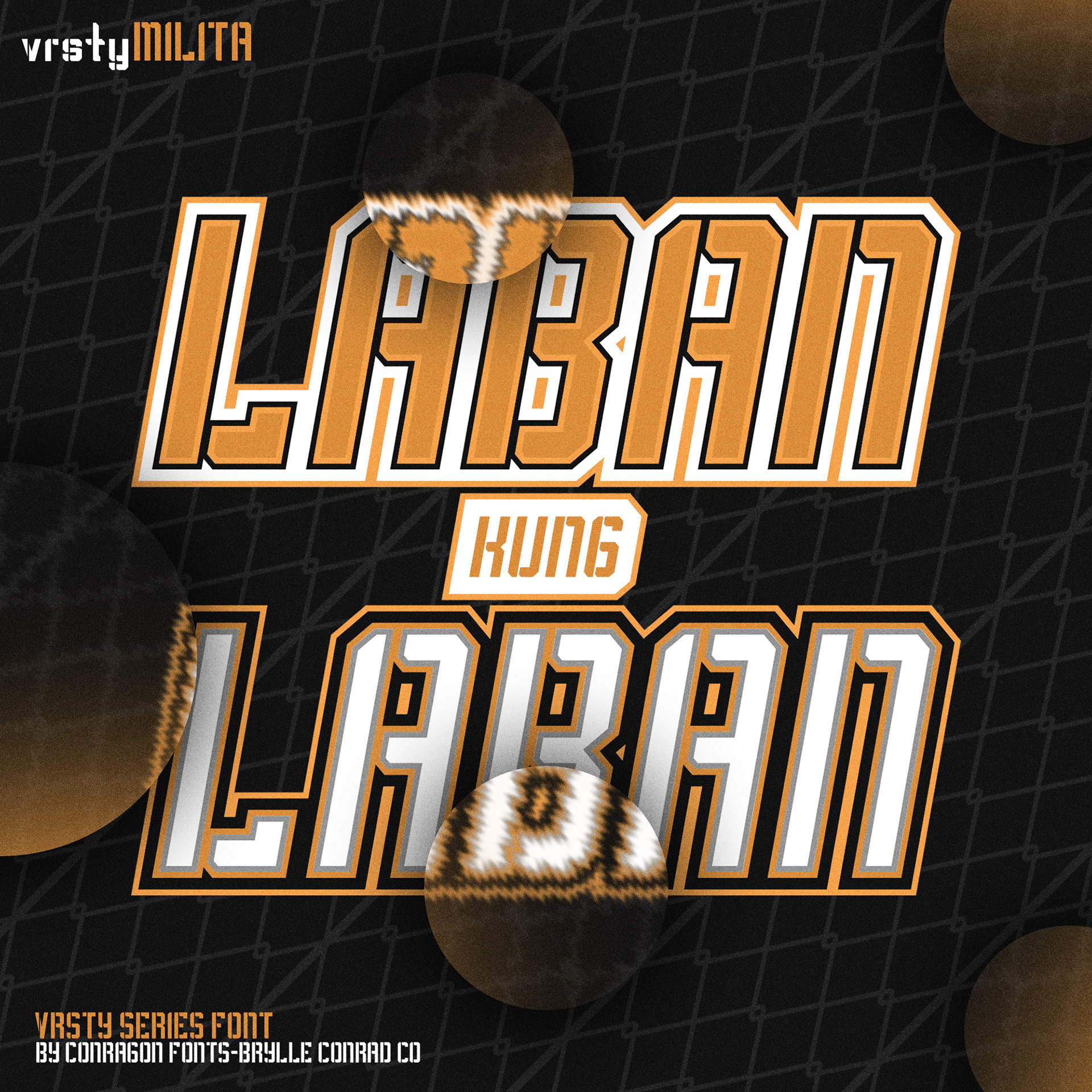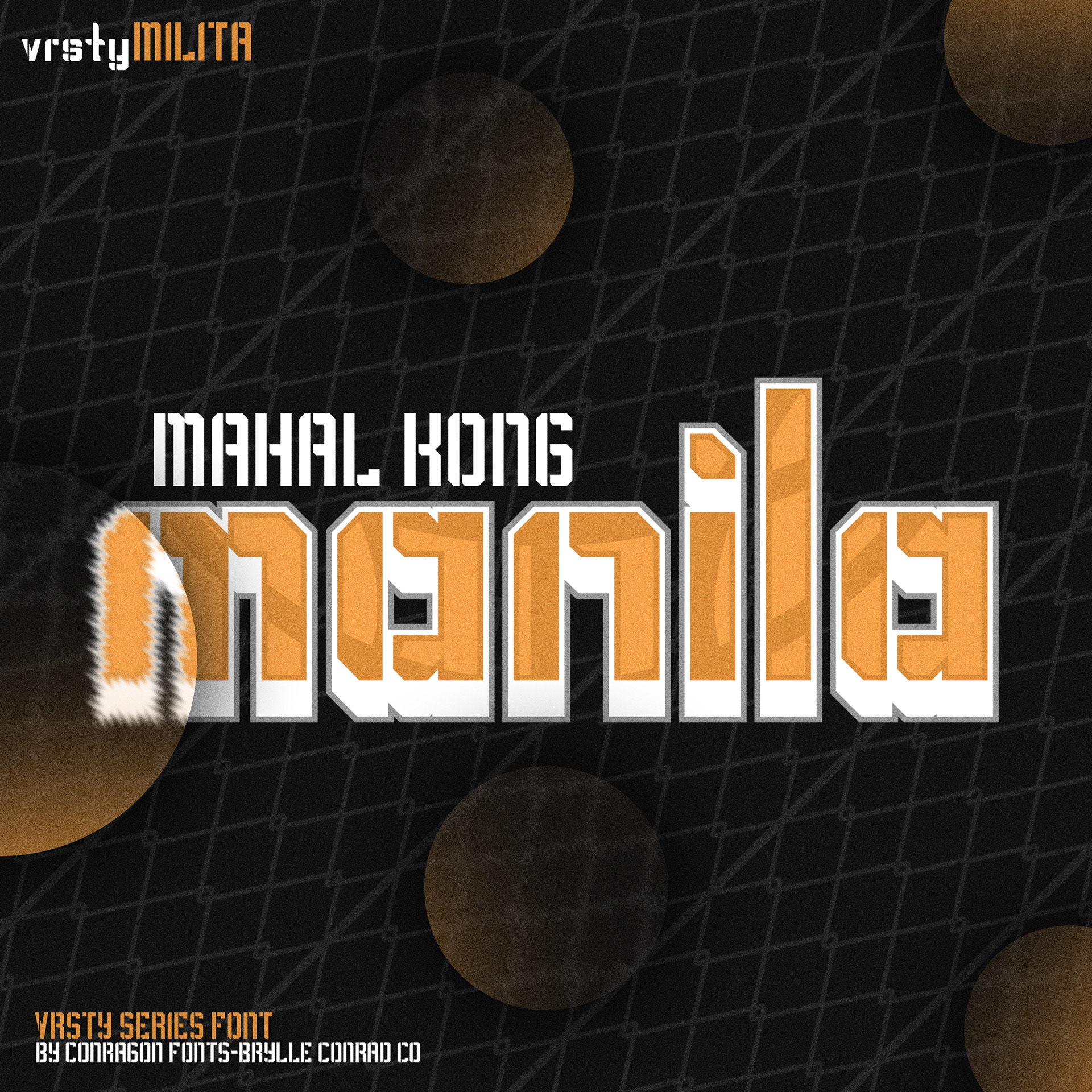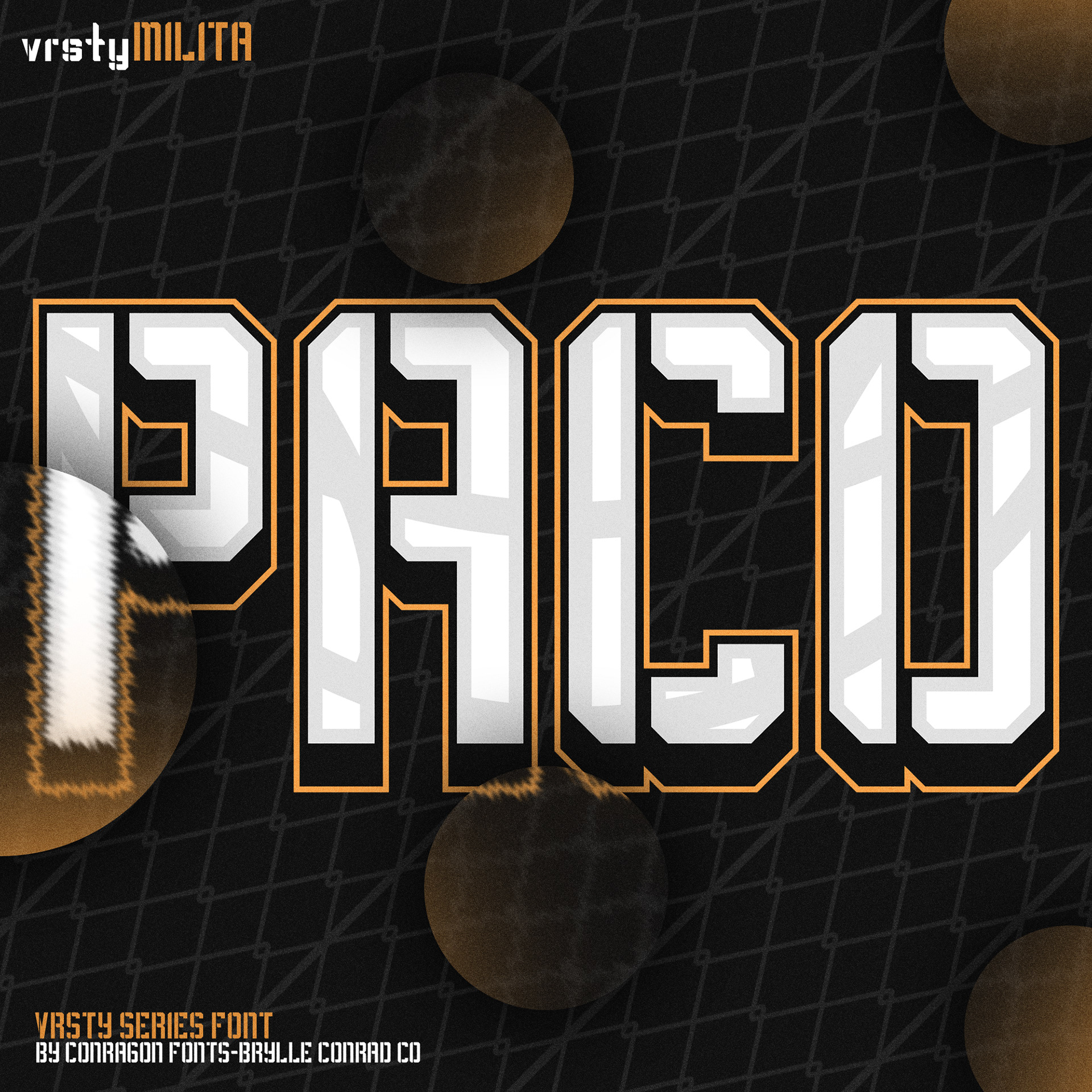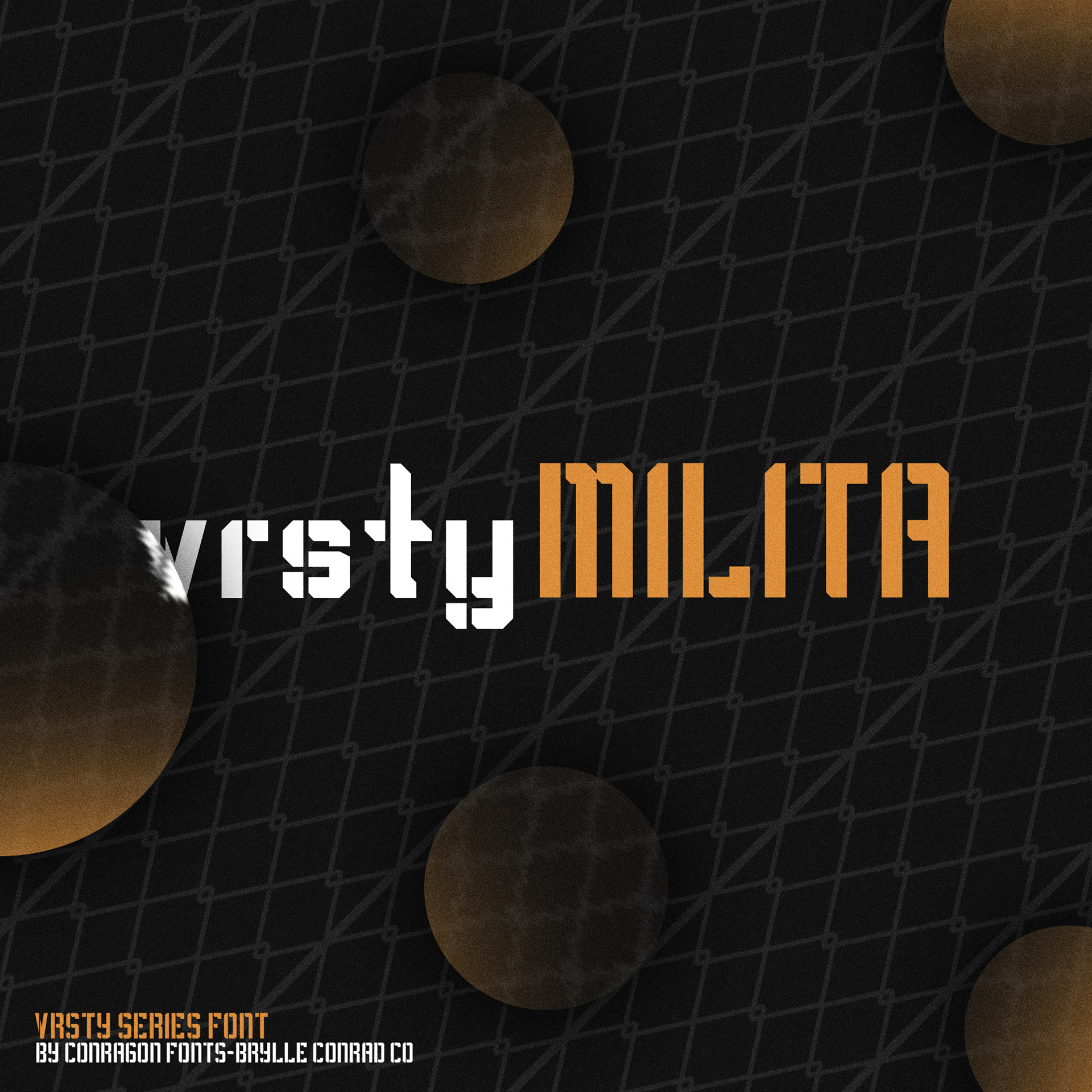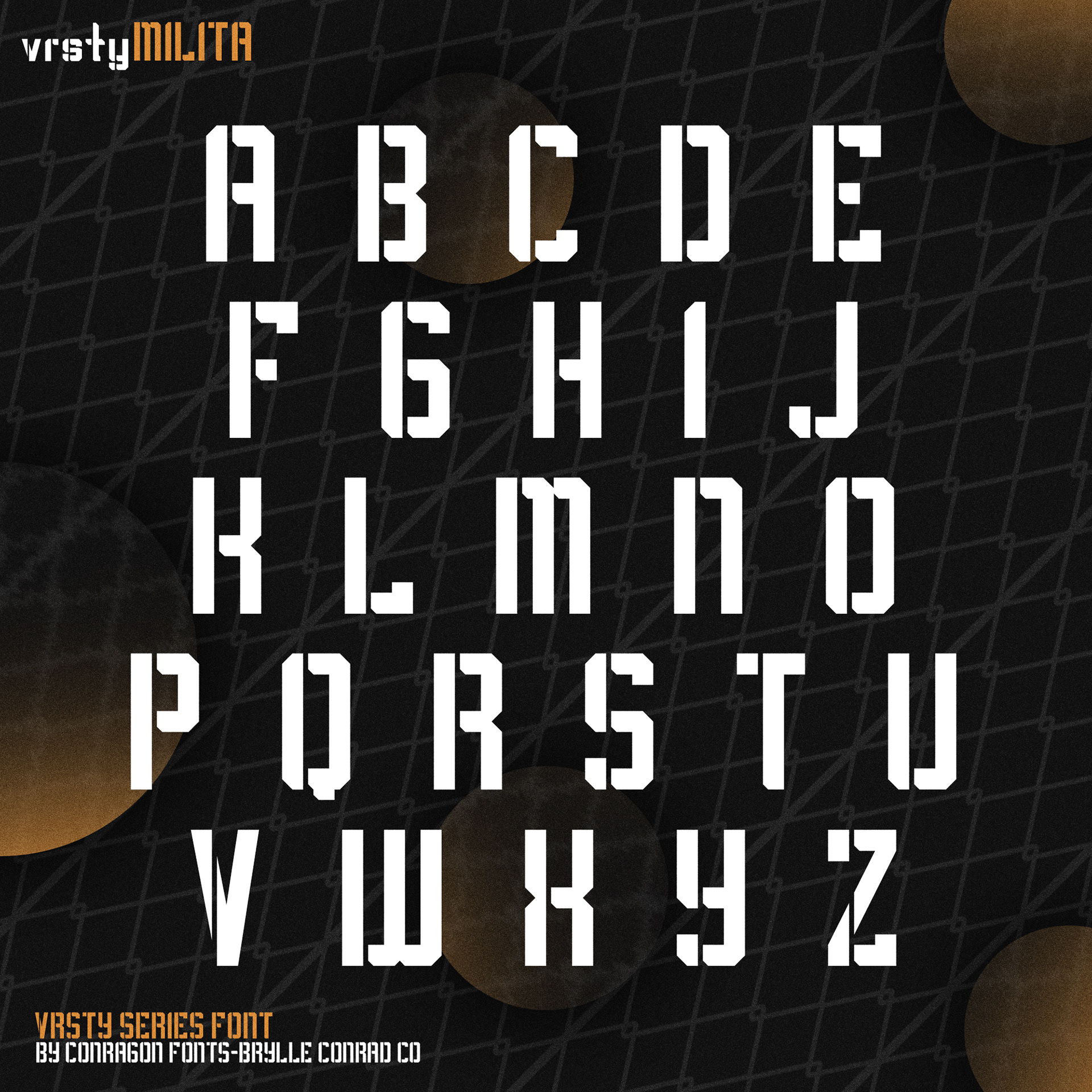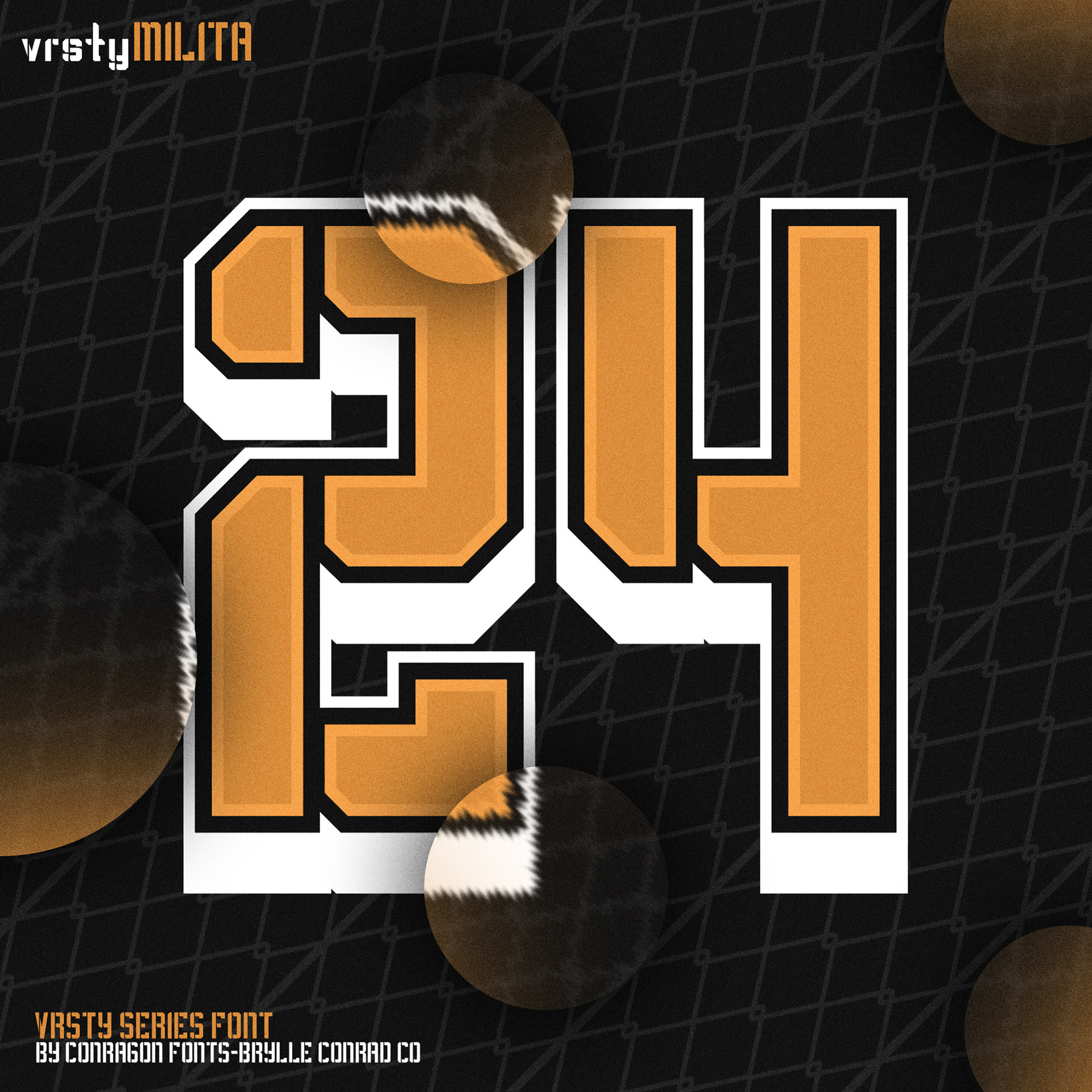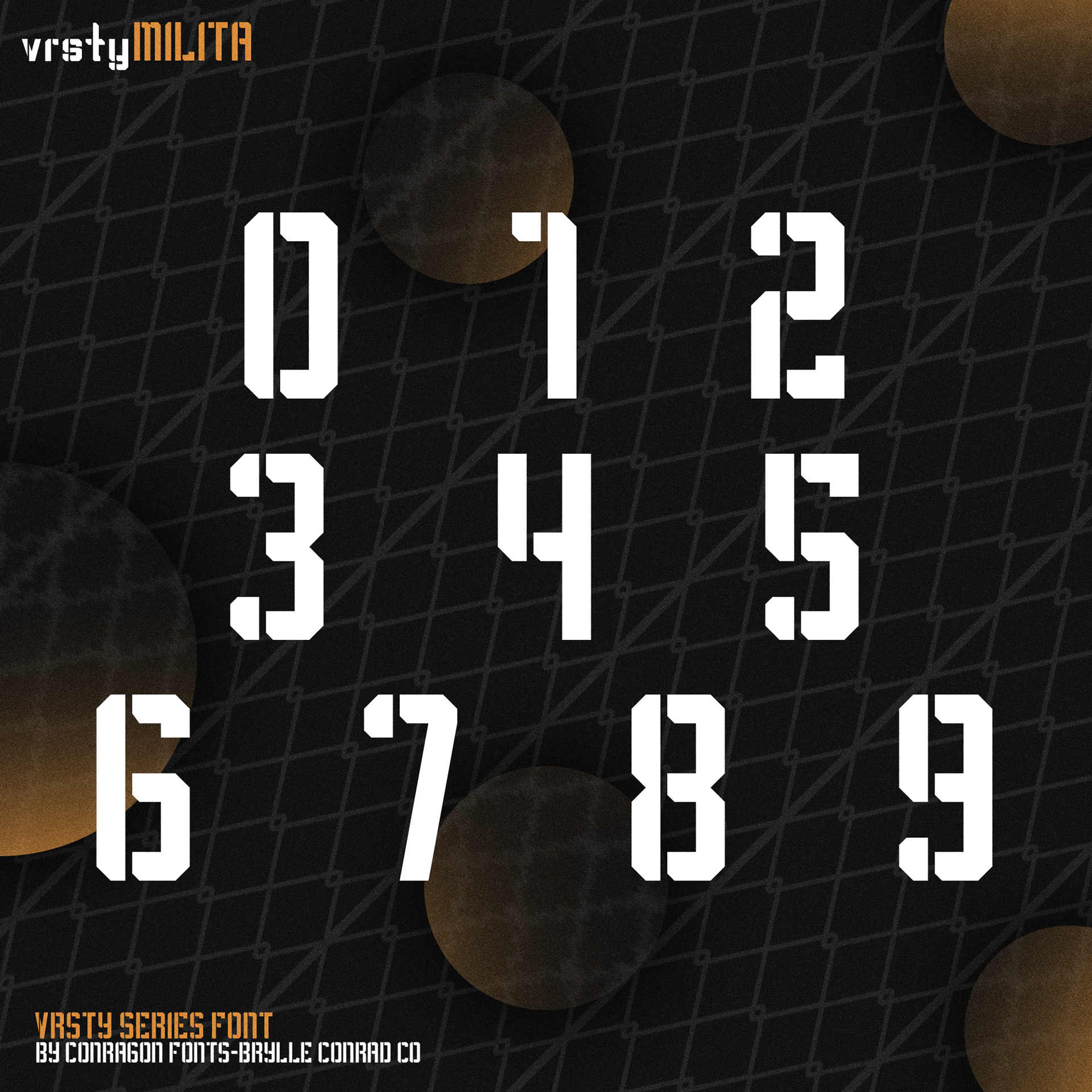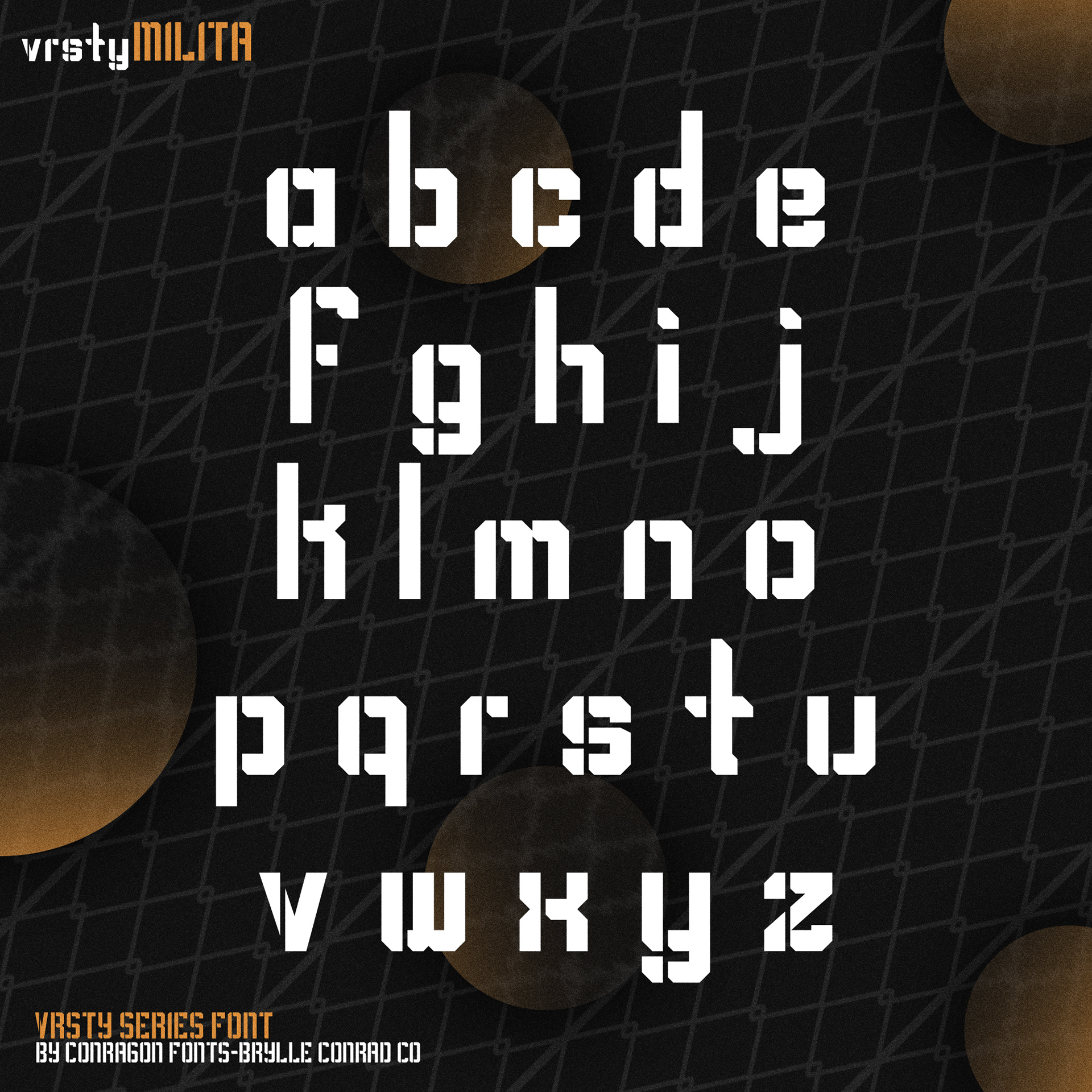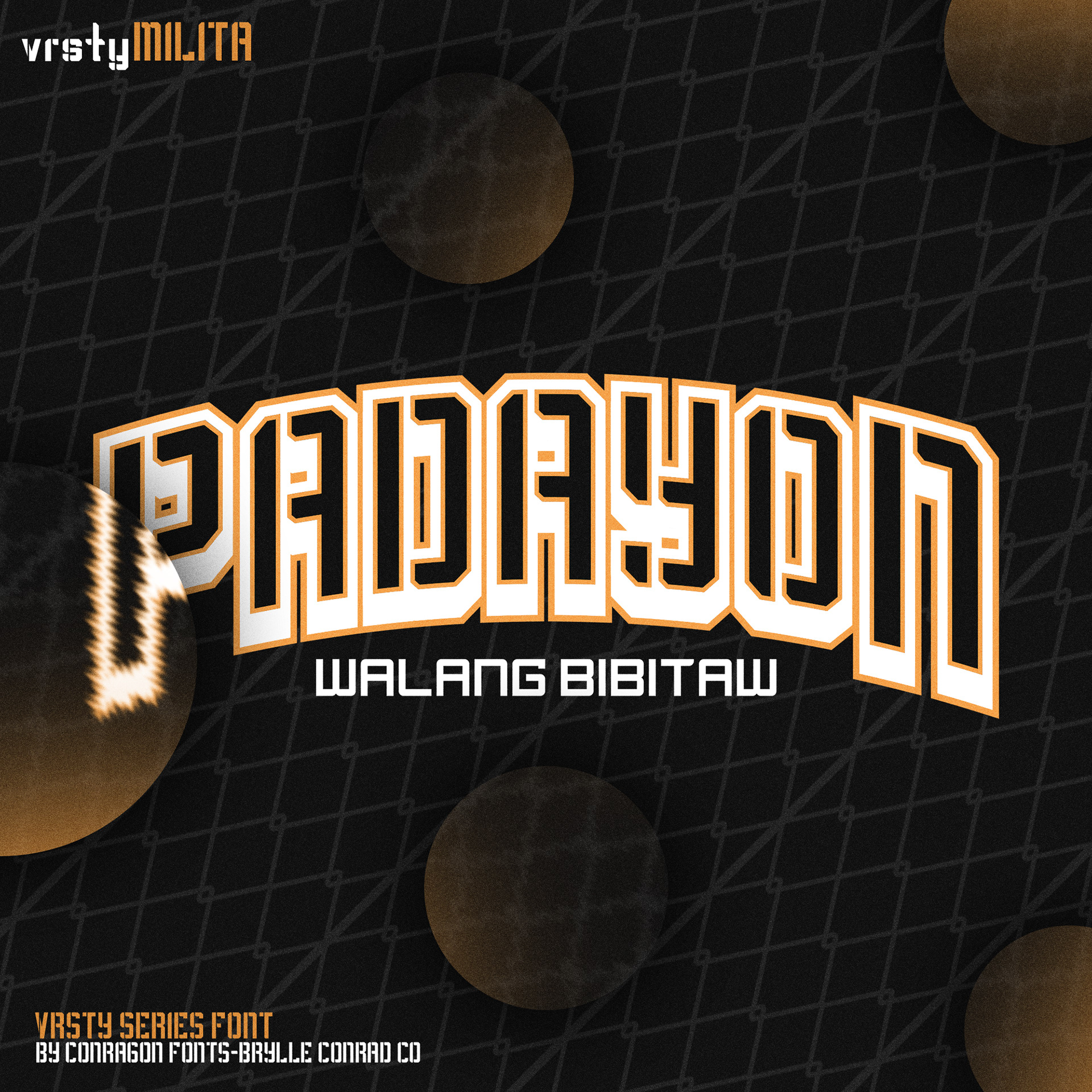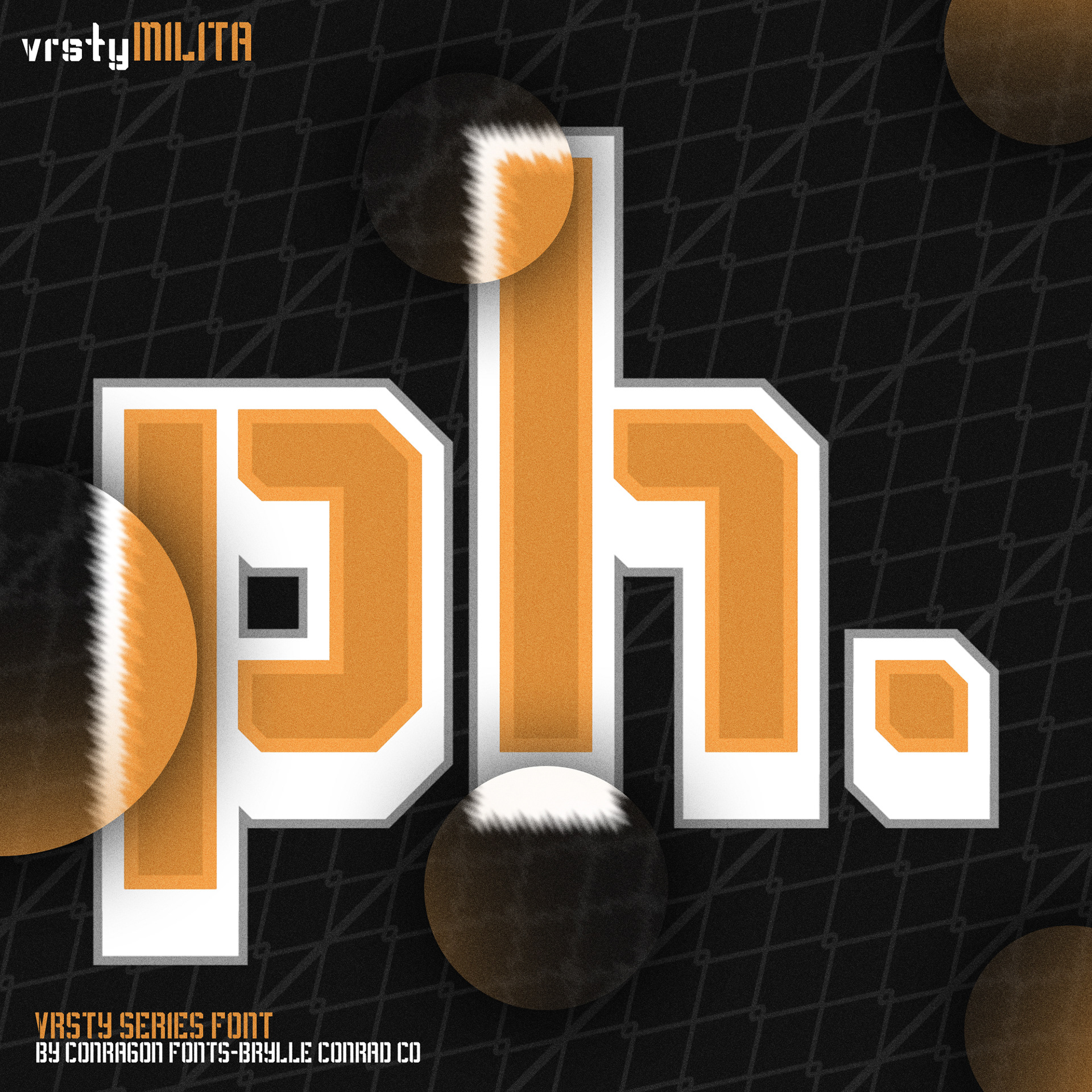
Welcome to vrsty SERIES! As you know, I'm a sport designer and this is the series that I really love to share with you!
My first font to release on this series is vrsty MILITA, As you can see in the name of this font, it's inspired in Military font, I rarely working on fonts with both a-z and A-Z, so if I did that, it's a really special font for me!